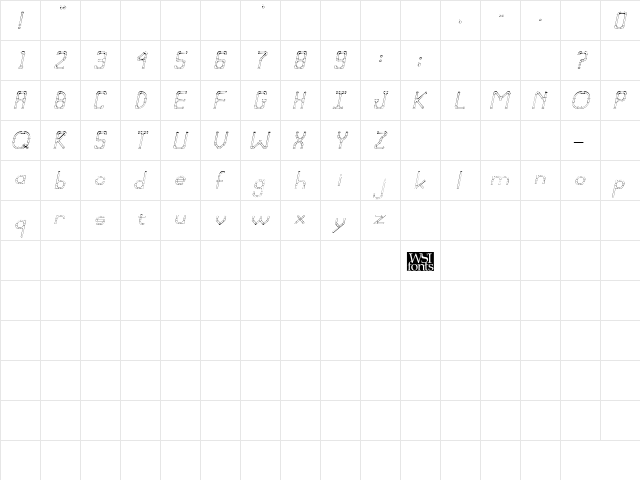
Pipefitter Italic
Design Context for Pipefitter Typeface
Pipefitter is a composed and adaptable typeface that performs quietly and consistently across a wide range of design contexts. The dynamic lean of this cut emphasises speed and emphasis in any layout.
Pro Tip: Try Pipefitter for annotation and caption copy alongside an upright companion — the contrast in angle creates a dynamic but ordered typographic system.